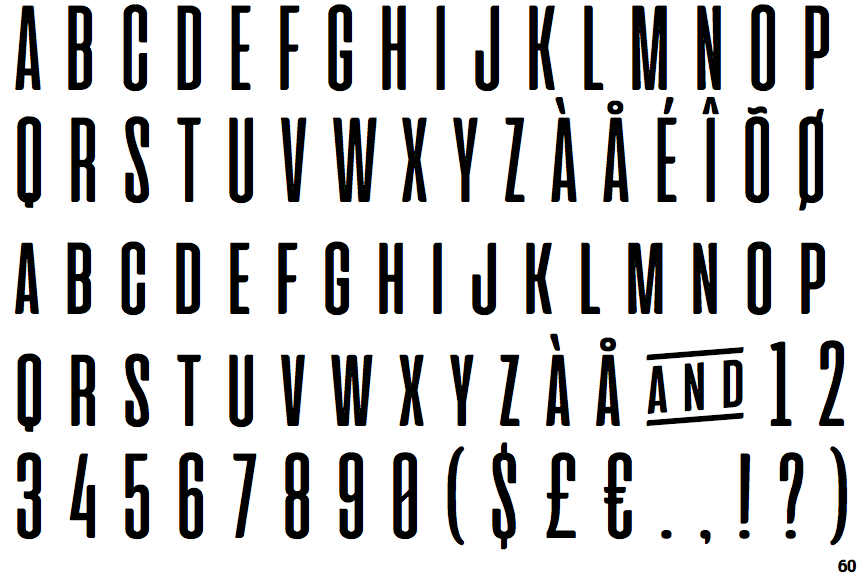
Download the free aliens and cows font by zetafonts. This trial font is totally free for noncommercial uses. Aliens and cows font belongs to the sans serif font loved ones that have great looks.
This Font Is Designed By Francesco Canovaro, Aliens And Cows Is An Ultracondensed Display Typeface.
It comes in one weights and features an extended character set with support for european languages, and contextual alternate for some characters. It comes in one weights and features an extended character set with support for european languages, and contextual alternate for some characters. Although we have the largest database of fonts, the search for a font from an image gets mixed results like the image above.
Download free aliens and cows font by zetafonts from fontsly.com. Aliens and cows is an ultra condensed sans serif display typeface designed by francesco canovaro. Designed by francesco canovaro, aliens & cows is a sans serif and display sans font family.
Designed By Francesco Canovaro, Aliens And Cows Is An Ultracondensed Display Typeface.